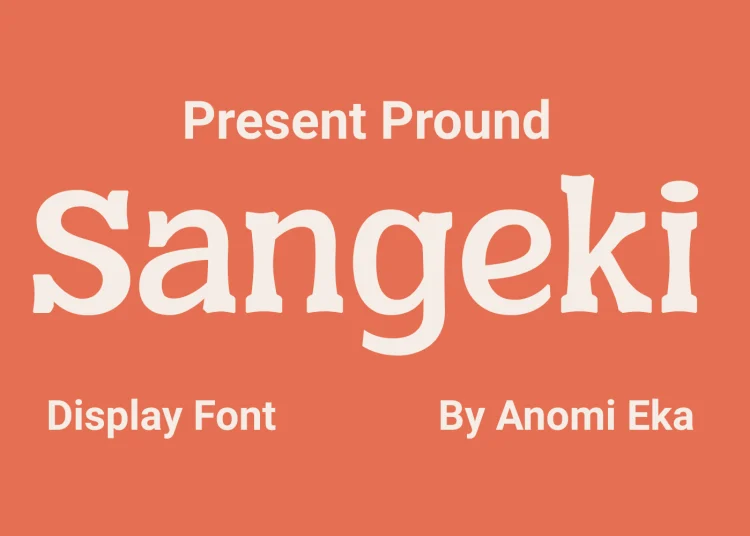
Sangeki Font
Sangeki is an elegant serif display font meticulously crafted to elevate your creative projects and bring them to the forefront with sophistication and style. This font excels in adding a touch of class and modernity to a variety of design applications, making it a versatile addition to your typographic toolkit.
Key Features of Sangeki:
• Sophisticated Serif Design: Sangeki’s refined serif characters are designed to enhance the visual appeal of labels, logotypes, and packaging, offering a blend of elegance and readability.
• Versatile Applications: Perfect for a wide range of uses, including Cricut projects, headlines, brand identity, apparel design, posters, magazines, books, and digital platforms such as YouTube, Instagram, and websites.
• Creative Flexibility: Whether you’re working on unique design ideas or standard creative tasks, Sangeki adapts seamlessly to various innovative projects.